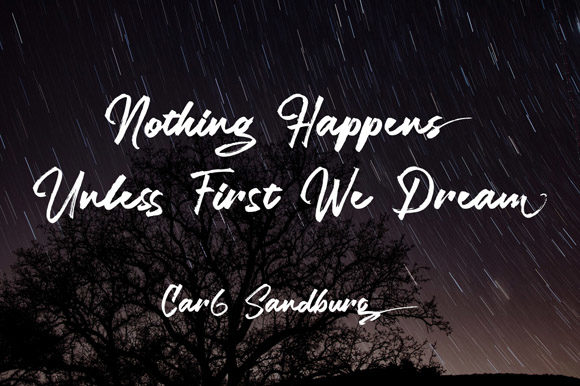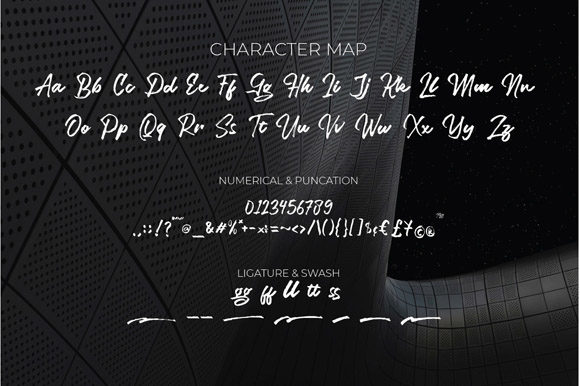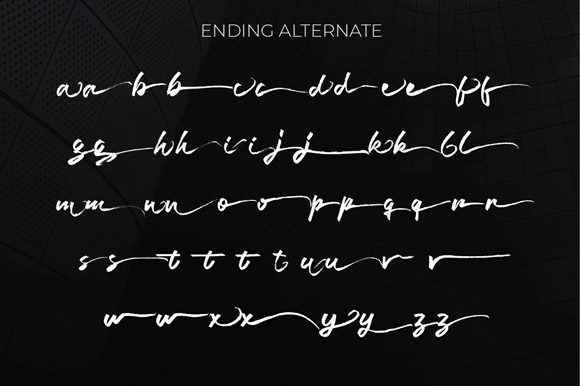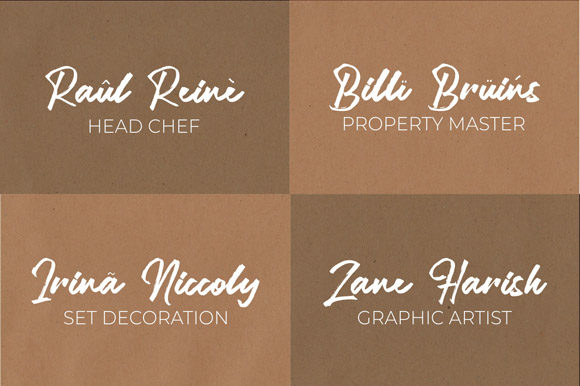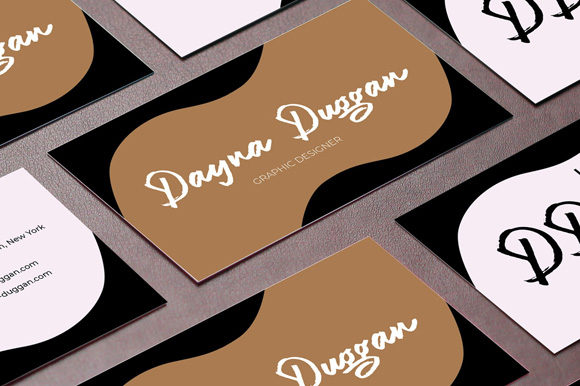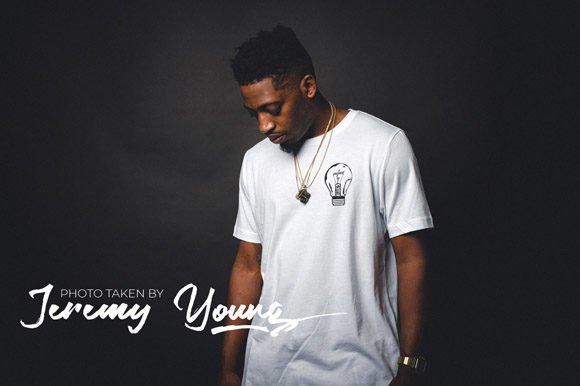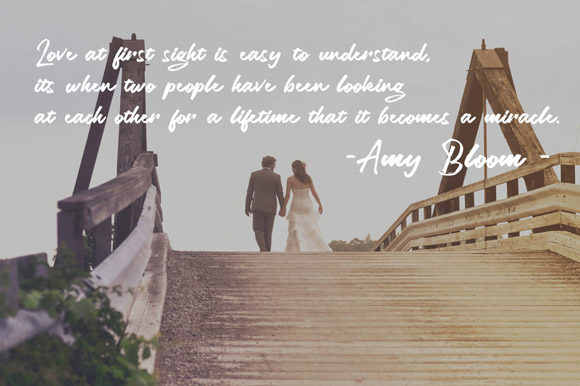
Legiante Font
About Legiante Font
Legiante is a handwritten font with incredibly personal charm. Each letter was made with a brush pen on real paper. With quick dry strokes and a signature style, Legiante is perfect for branding projects,